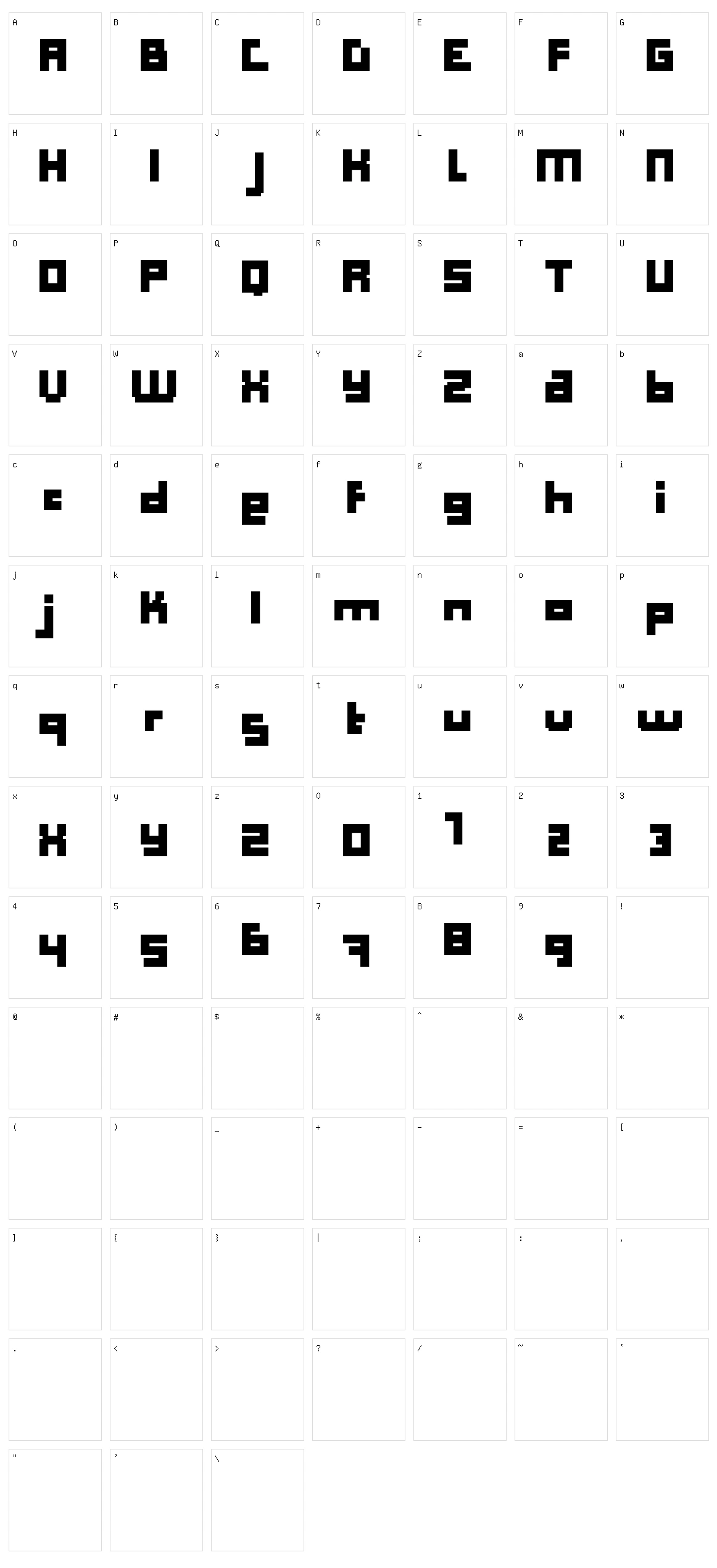
The free font Computer Aid is carefully designed by BC, showcasing a thoughtful balance of creativity and usability and falls under the Square font style. When you download the ZIP file, it contains only 19.62 KB of font files, making it lightweight and quick to download. Please review the license details below to understand permitted usage and distribution rights. If license information is not available, we recommend using this font for personal projects only or contacting the author directly for commercial usage permissions.